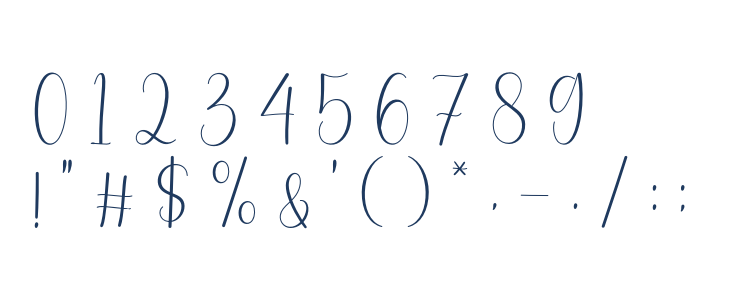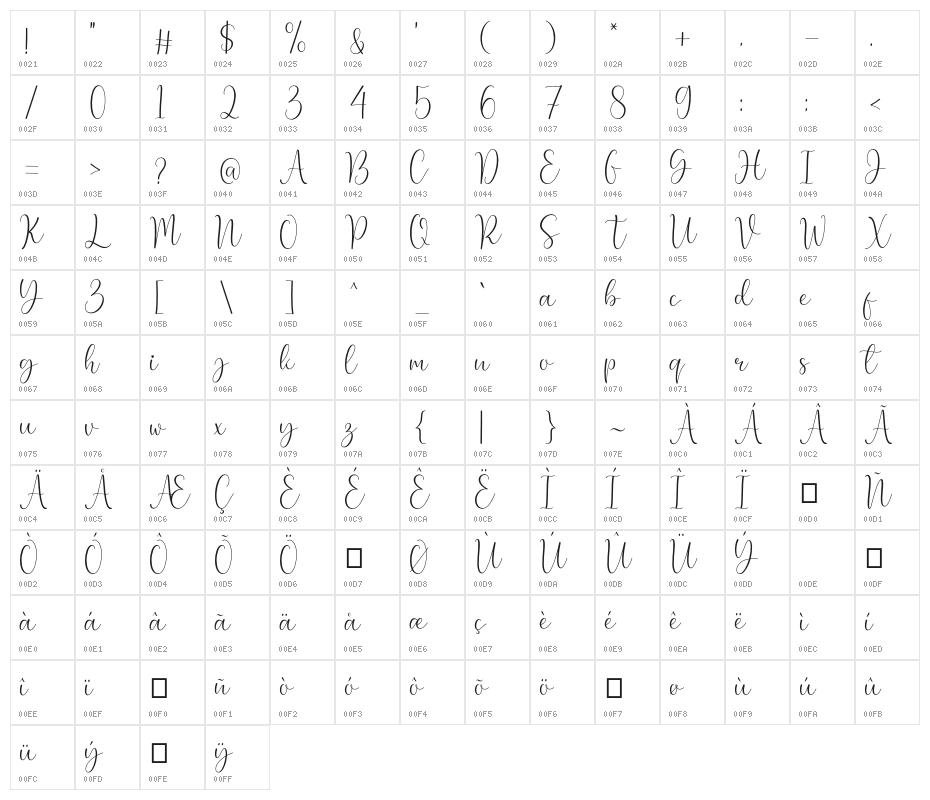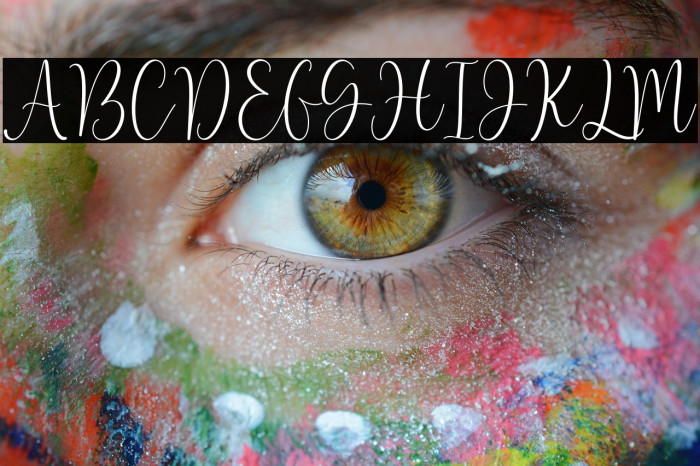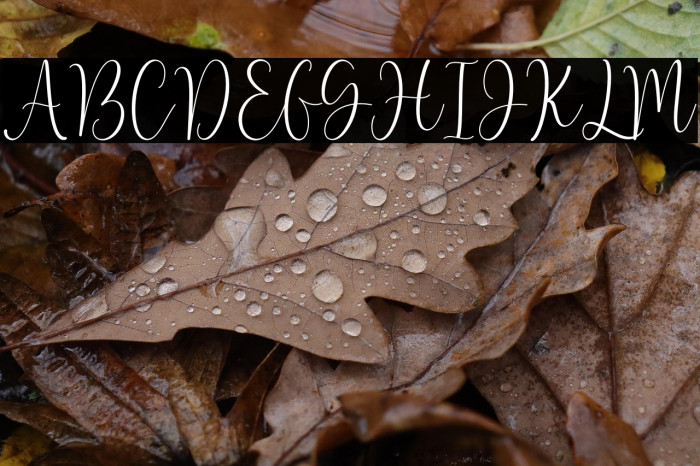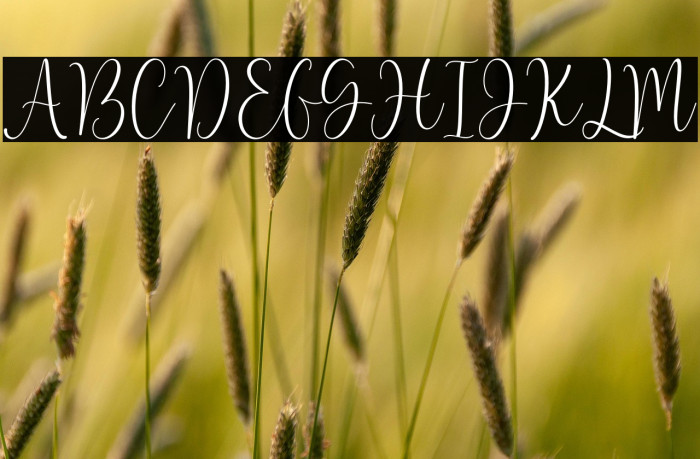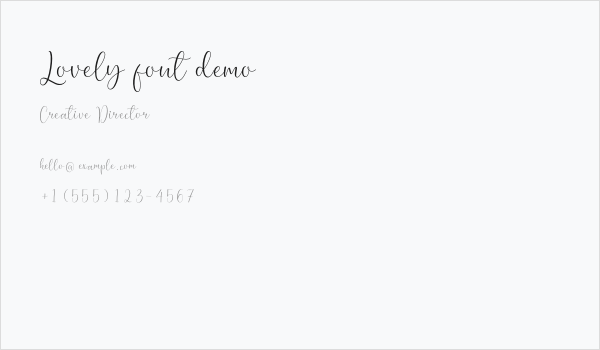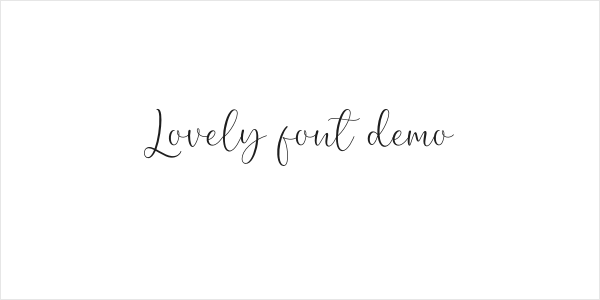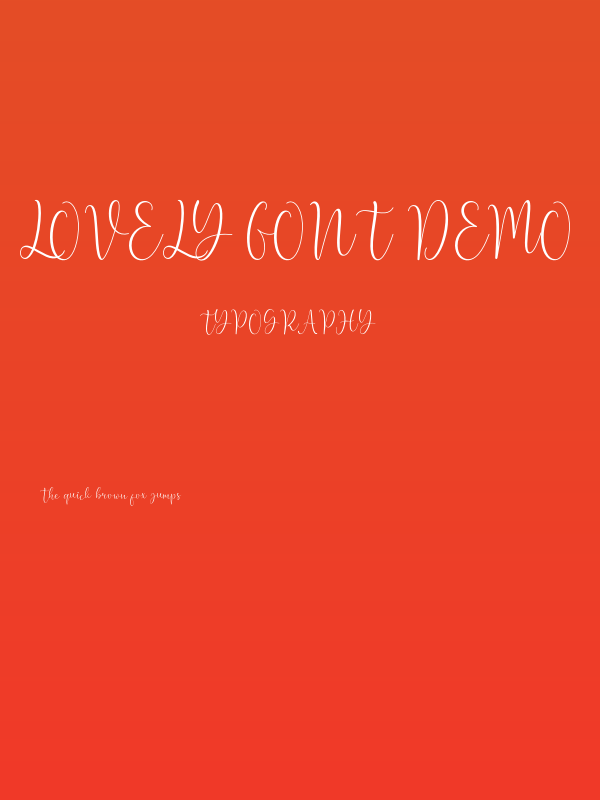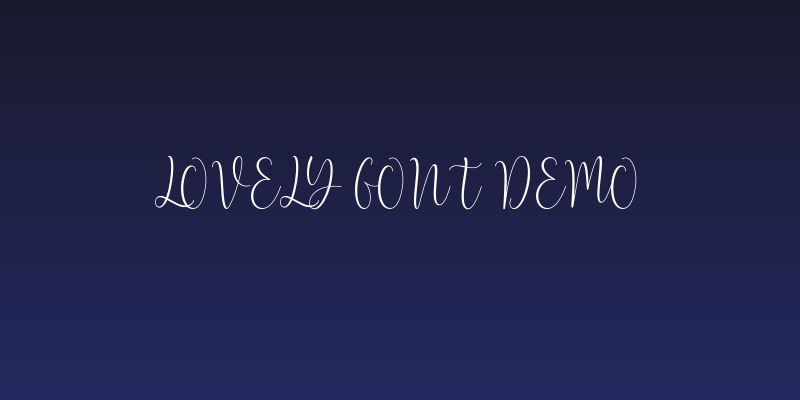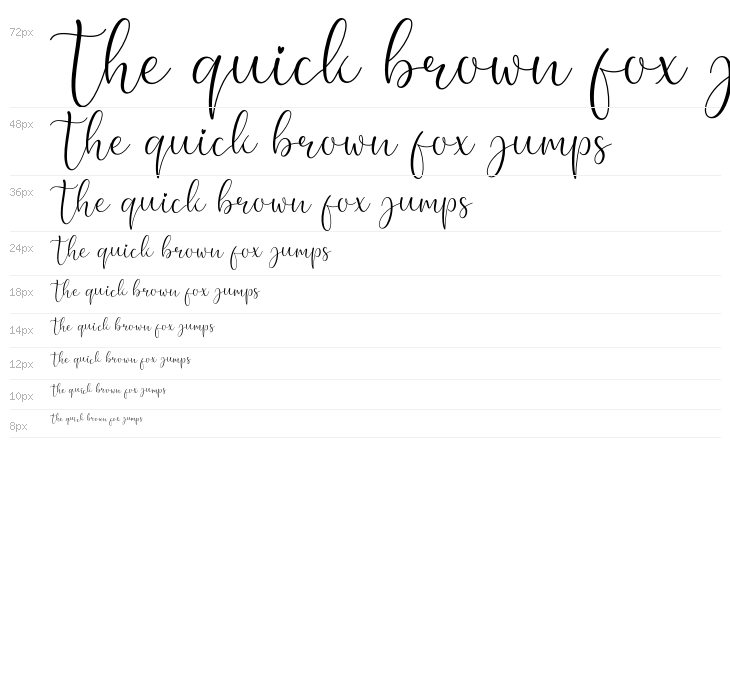
Lovely font demo Font
Lovely font demo Description
This font features an elegant and flowing script style, characterized by its smooth, cursive strokes and graceful loops. The uppercase letters are tall and slightly narrow, with a consistent slant that adds a sense of motion and fluidity. The lowercase letters are more rounded and connected, enhancing the handwritten feel. The numerals maintain the same elegant style, with a slight variation in stroke thickness that adds visual interest. Special characters are thoughtfully designed to match the overall aesthetic, making this font versatile for various uses. Its delicate and sophisticated appearance makes it ideal for projects that require a touch of elegance and charm.
| Overall Style | Elegant, Handwritten |
| Proposed Projects | Ideal for wedding invitations, greeting cards, branding, and elegant logo designs. |